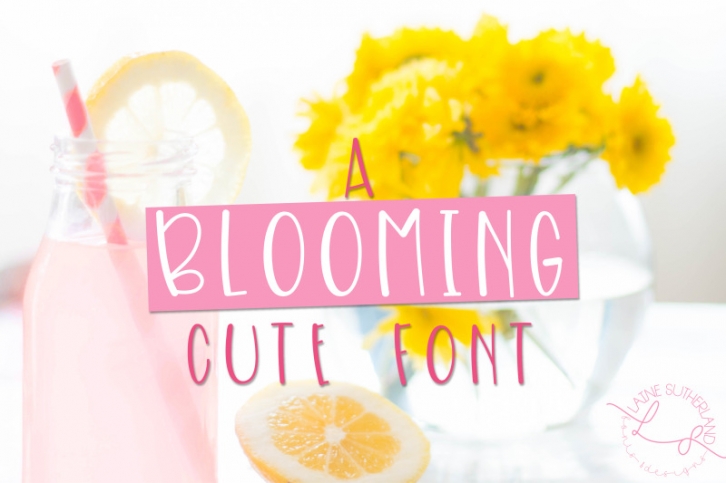
Blooming is a cute handwritten font. The uppercase letters are the same, just smaller than the uppercase.
This font is great for branding, logos, invitations, quotes and more.